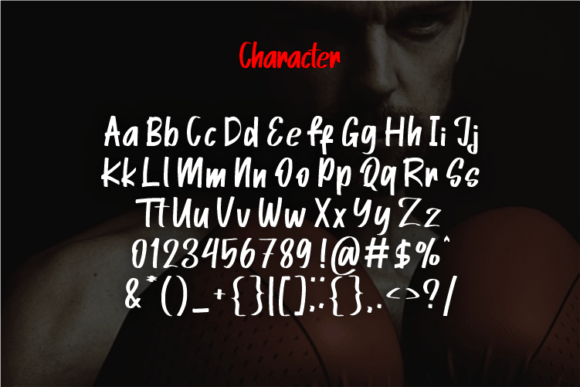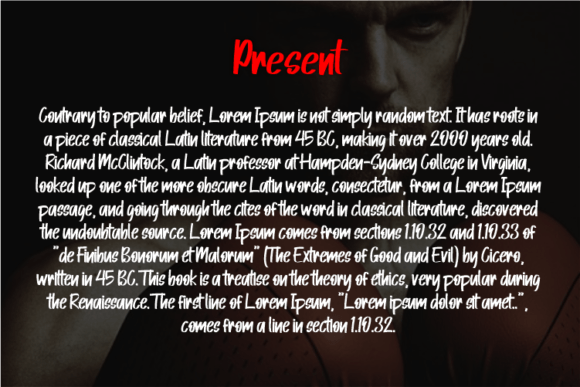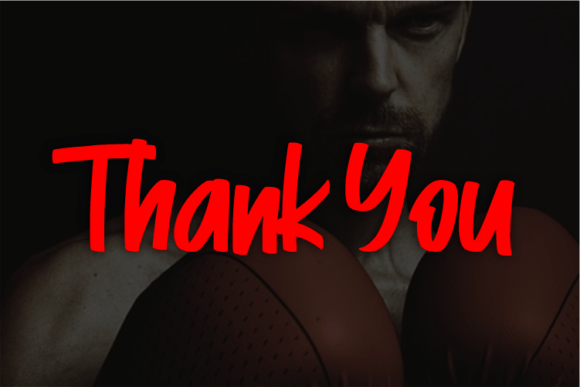
Blackred Font
What Is BlackRed Font?
BlackRed is a modern script typeface created to bring elegance and sophistication to your design projects. Every letter features smooth curves and clean lines, combining a simple style with a luxurious feel. Because of its contemporary look, this font works beautifully in many professional and creative contexts.
You will see how effortlessly BlackRed elevates your ideas and adds a refined touch to your designs.
BlackRed is a highly versatile font that fits perfectly in countless applications. For example, it’s ideal for luxury logos. The sleek script creates a polished and upscale impression that clients will remember.
In addition, it works wonderfully for book and movie titles. Whether you are designing a cover or promotional materials, this font adds drama and style.
You can also use it for fashion branding. From magazine layouts to clothing labels, BlackRed brings an elegant edge that feels both timeless and modern.
When you design quotes, posters, or social media graphics, BlackRed helps your words stand out with a chic, confident look.
Moreover, it’s great for packaging, business cards, and website headers. Even minimalist layouts look more impactful with this stylish script.
Why Should You Choose BlackRed Font?
There are many reasons to consider BlackRed for your next project. First, it’s easy to read, even with its flowing strokes. Whether you use it for large titles or smaller text, every letter remains clear and balanced.
Also, BlackRed pairs beautifully with clean serif or sans-serif fonts. This makes it easy to build cohesive, modern layouts without extra effort.
Designers appreciate that it looks professional out of the box, saving time while delivering polished results.
BlackRed Font brings elegance and confidence to every project. For example, when you want your designs to feel luxurious and memorable, this font makes it easy.
Even simple layouts look more sophisticated with BlackRed’s modern script style. Whether you create branding, editorial design, or packaging, your work will stand out effortlessly.
Using a premium script font also shows your dedication to detail and quality. This builds trust with your audience and makes your designs more impactful.
BlackRed Font is more than just a typeface—it’s a creative tool that helps you share ideas with clarity and sophistication. From logos and book covers to fashion branding and quotes, this font adapts beautifully and leaves a lasting impression.